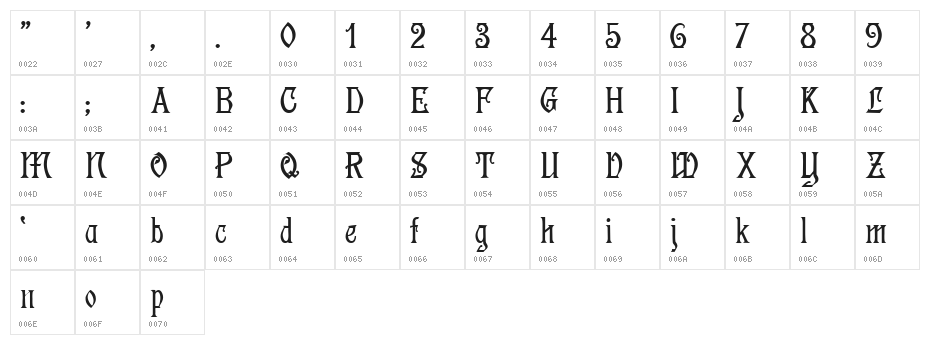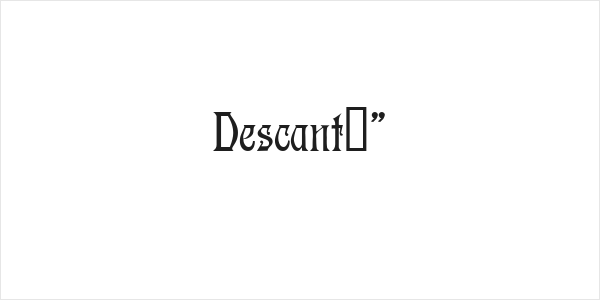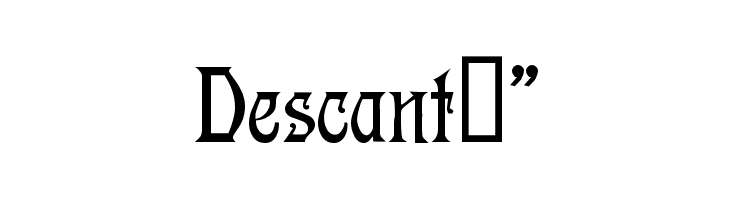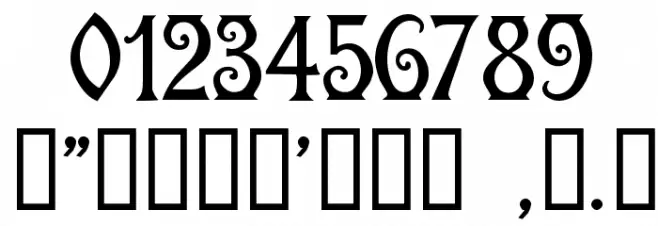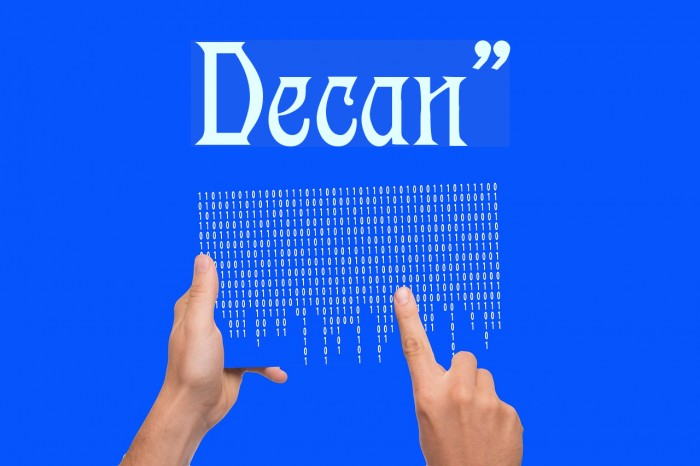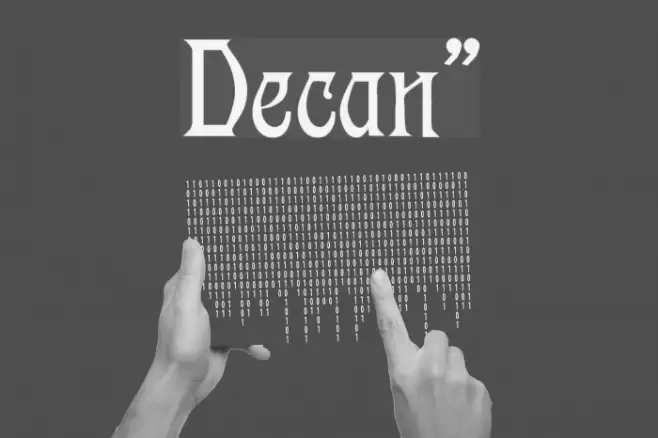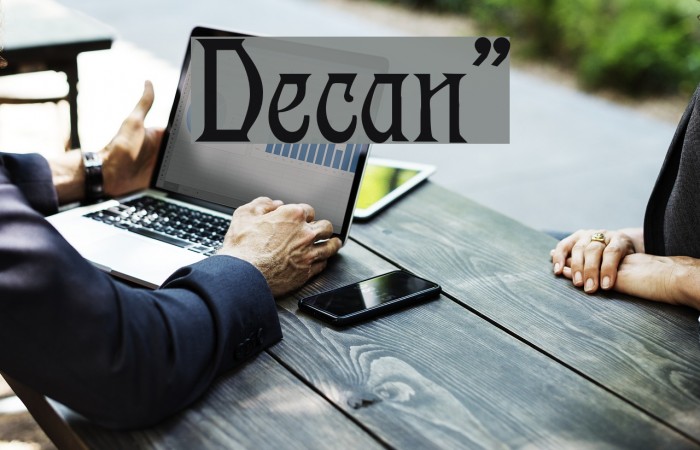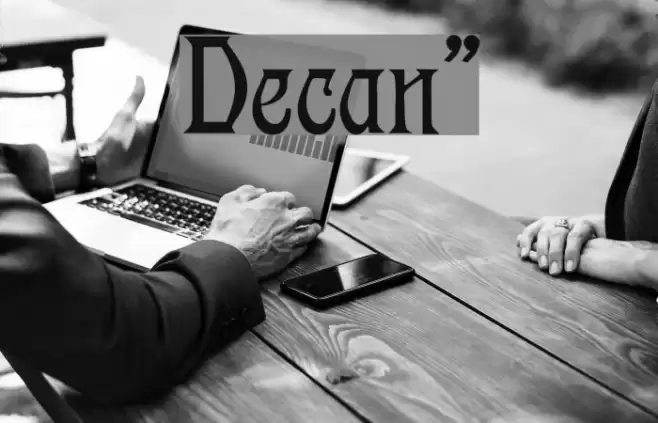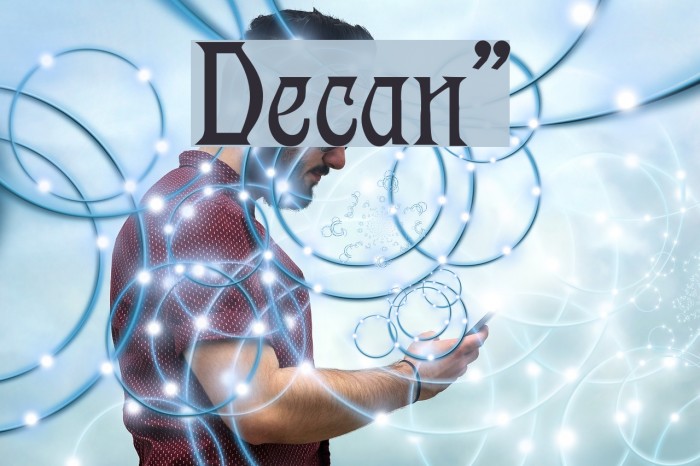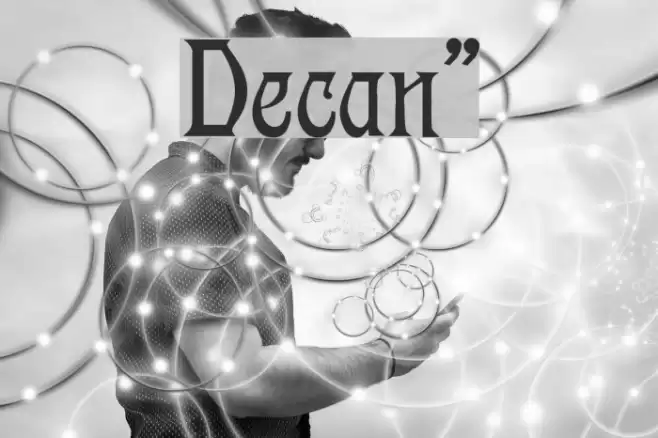
Descant!" Font
Descant!" Description
This font features a bold and dramatic style with a distinct blackletter influence. The characters are ornate, with sharp angles and intricate detailing that give it a gothic and medieval appearance. The uppercase letters are particularly elaborate, with unique flourishes and serifs that enhance its decorative nature. The lowercase letters maintain the same stylistic elements, ensuring consistency throughout the typeface. Numbers and special characters are equally stylized, making this font suitable for projects that require a historical or fantasy theme.
| Use Case | Logos, Headlines, Posters |
| Proposed Projects | Ideal for use in fantasy book covers, historical event posters, or themed invitations. |